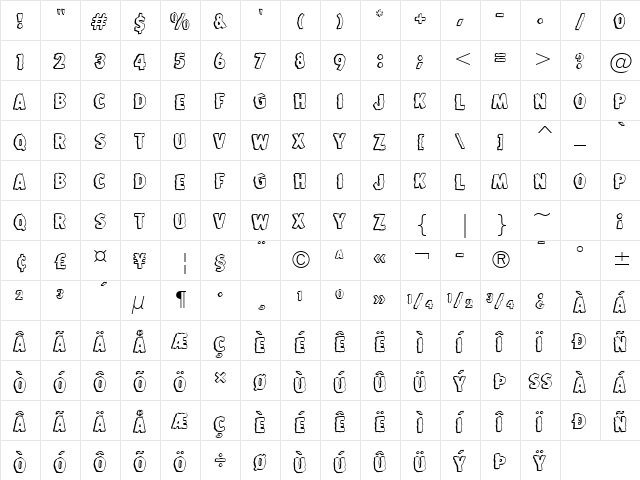
StoneAge BT Regular
Design Context for StoneAge BT Typeface
StoneAge BT is a composed and adaptable typeface that performs quietly and consistently across a wide range of design contexts.